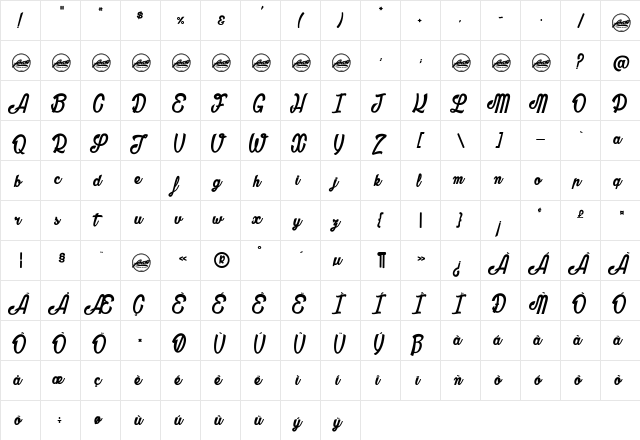
Oblivion_PersonalUseOnly Regular
| Foundry | dcoxy Medina Gregory |
| Designer | dcoxy Medina Gregory |
Design Context for Oblivion_PersonalUseOnly Typeface
Oblivion_PersonalUseOnly takes a measured approach to typography — its balanced proportions and neutral character make it a reliable workhorse for both digital and print work.